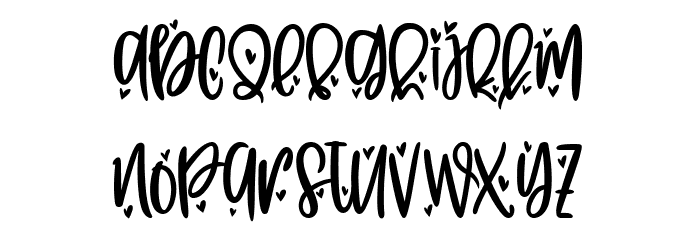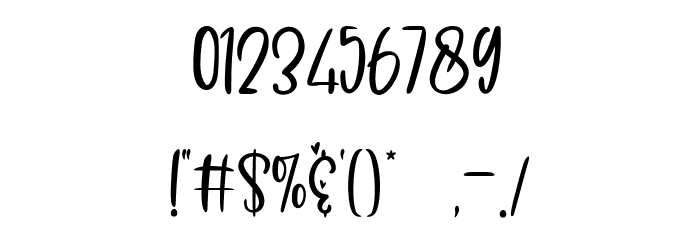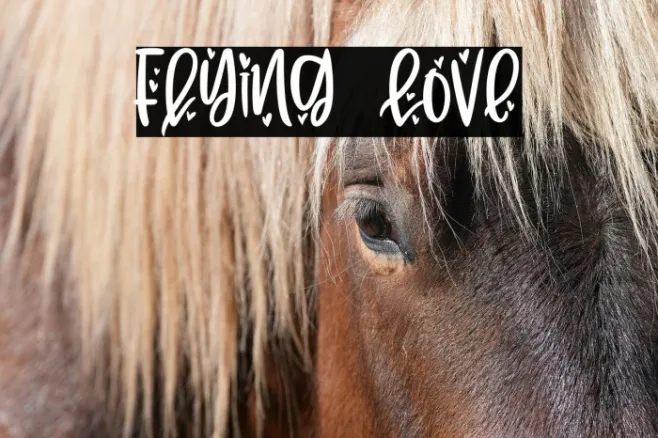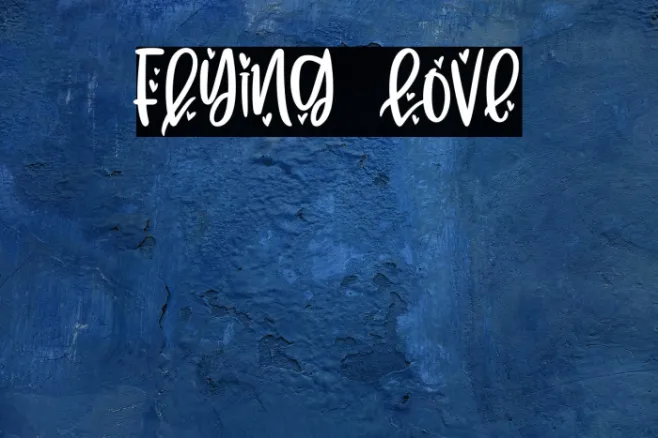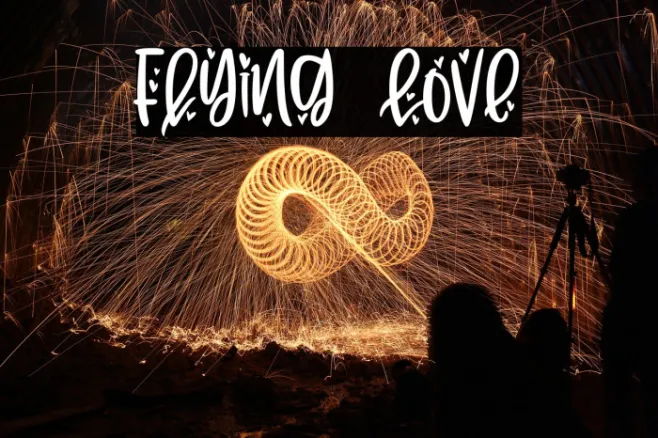
Flying Love Font
This font features a playful and whimsical style, characterized by its decorative elements and heart motifs integrated into the letterforms. The strokes are bold and expressive, with a consistent thickness that gives it a cohesive look. The uppercase and lowercase letters maintain a uniform height, contributing to its balanced appearance. The numbers and special characters are designed to match the overall aesthetic, making it suitable for creative and romantic themes. The font's unique personality makes it ideal for projects that require a touch of charm and individuality.
A playful, heart-themed decorative font with bold strokes.
- Proposed Projects: Ideal for wedding invitations, greeting cards, love-themed posters, and playful branding.
- Use Case: Logos, Headlines, Invitations